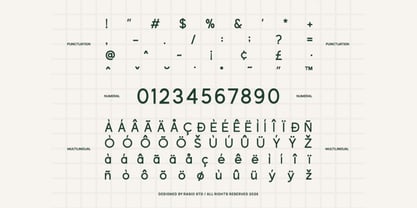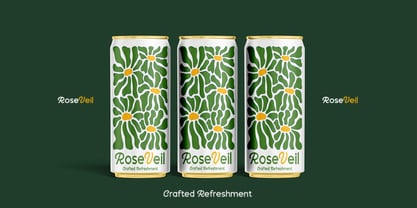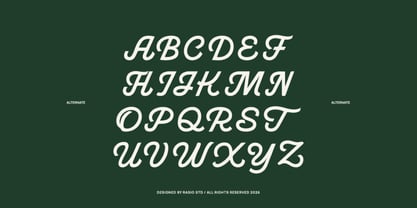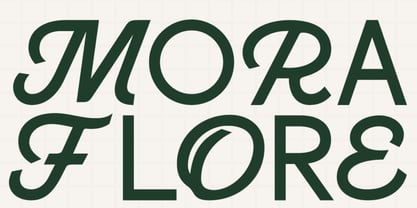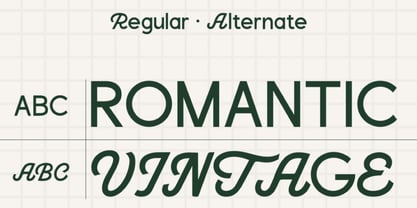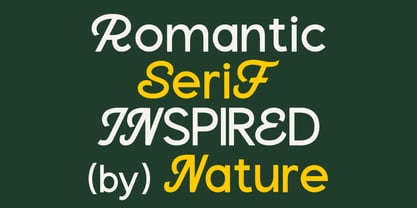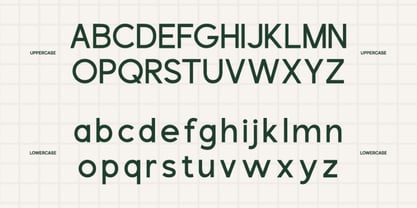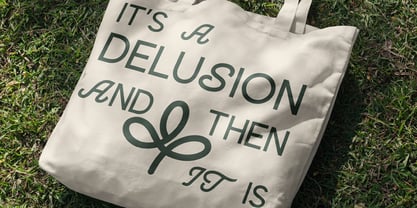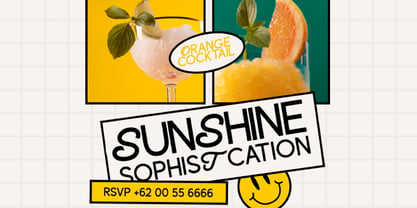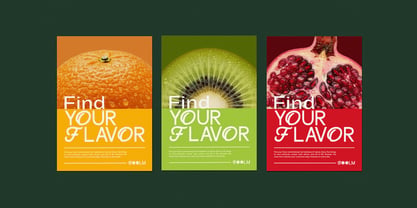
Mora Flore
by Rasio Studio
The Mora Flore Font Family was designed by Fajar Indra and published by Rasio Studio. Mora Flore contains 1 styles. More about this family
Mora Flore is a modern decorative serif typeface that blends clean sans-serif structure with soft floral curves and romantic alternates. The design features uppercase, lowercase, stylistic alternates, numerals, and punctuation, carefully crafted to create elegant word shapes and expressive headlines. Relevance and Use Cases is perfect for fashion branding, boutique logos, beauty packaging, editorial magazines, lifestyle campaigns, wedding stationery, social media visuals, and any design that needs a soft yet refined serif presence with artistic character and modern elegance.